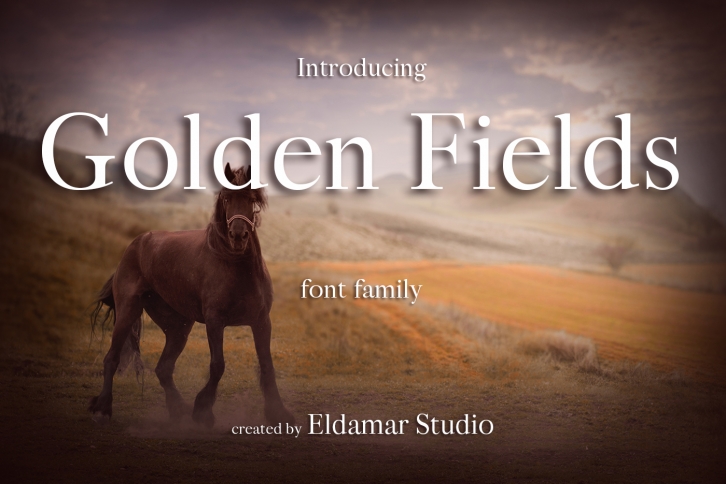
Golden Fields is a great font that was designed by Eldamar Studio. Imagine the amount of combinations you can create using this font! The archive is 1.14 MB and it was released on July 26, 2018. Golden Fields looks beautiful on wedding invitations, greeting cards, logos, posters, labels, t-shirt designs, logos, business cards and is perfect for use in ink or watercolor works, fashion, magazines, packaging and food menus, children's books and more!